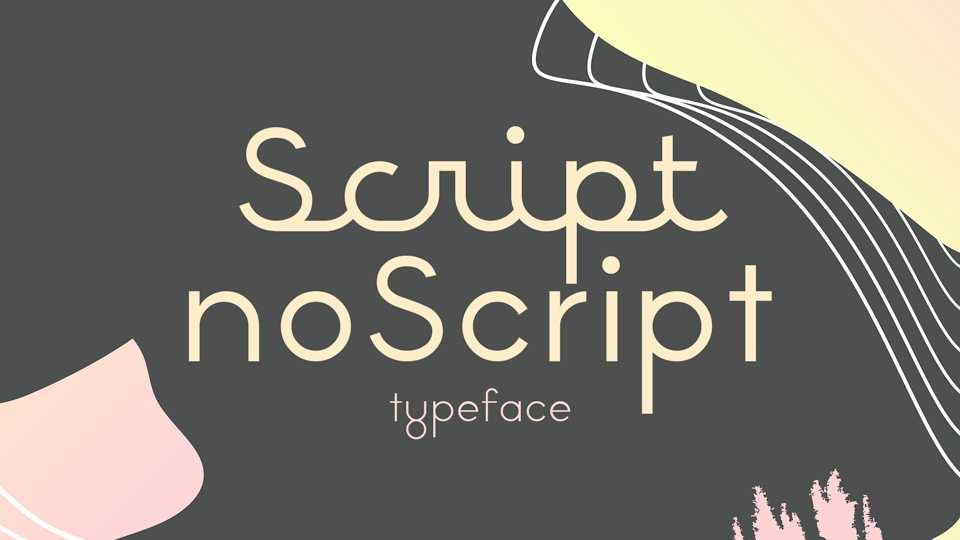
Download BPScript and BPnoScript fonts, geometric family featuring a connected typeface suitable for titles and small texts and not connected font family with strict and intentionally naive geometry, available in 3 weights.
Designer: Backpacker